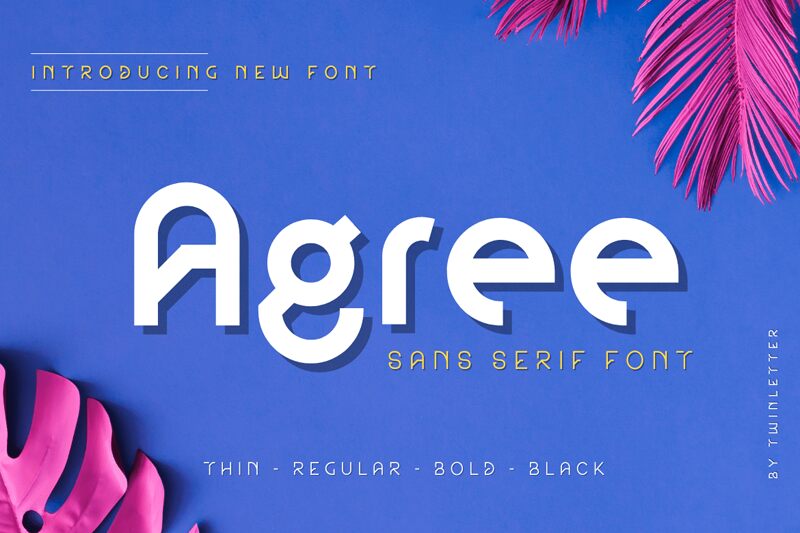
AgreeThin
Agree Thin font by Twinletter is a clean and geometric techno display font of an exceptionally light weight. Modern, minimalist, and futuristic; the result is both striking and memorable. The entire experience becomes a visual treat when viewed by combining several characters into sharp textual compositions.
The free high-tech font waits to be used in coding websites, blockchain app interfaces, artificial intelligence journals, software product labels, technical magazines, security publications and branding projects from within these industries. Beyond that; it proves just as useful for video game covers and posters of sci-fi movies – among others!